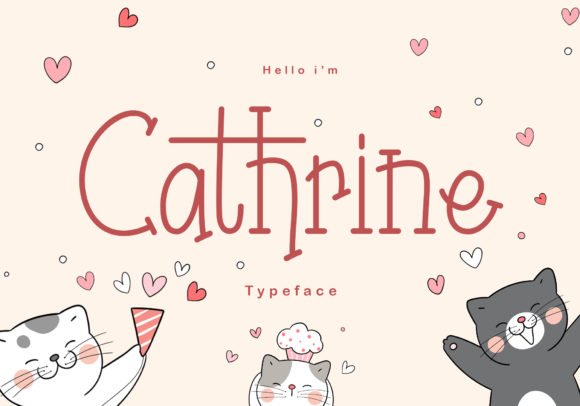
Introduction to Chatrine Font
Cathrine embodies fun, quirkiness and authenticity.
This enchanting display font will turn any creative idea into a true standout .
Key Features of Chatrine Font
Why Choose Chatrine Font?
Chatrine Font offers exceptional quality and versatility, making it a valuable addition to your design toolkit. Whether you’re creating for personal projects or commercial use, Chatrine Font delivers professional results.